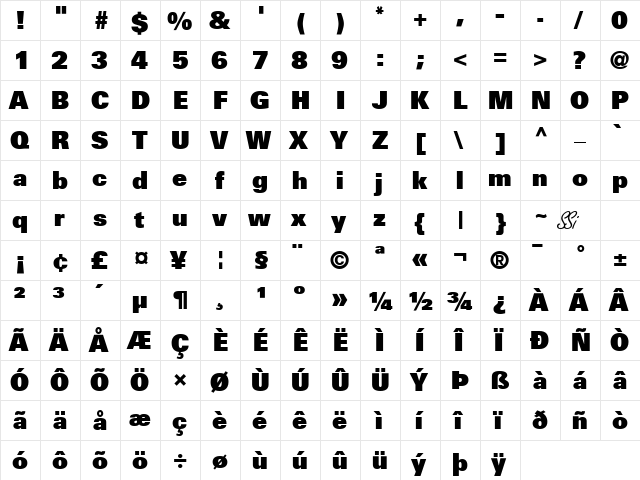
Nova Ultra SSi Extra Black Font Preview
Nova Ultra SSi Extra Black
Nova Ultra SSi Extra Black Font Details
Design Context for Nova Ultra SSi Typeface
Nova Ultra SSi is a composed and adaptable typeface that performs quietly and consistently across a wide range of design contexts.